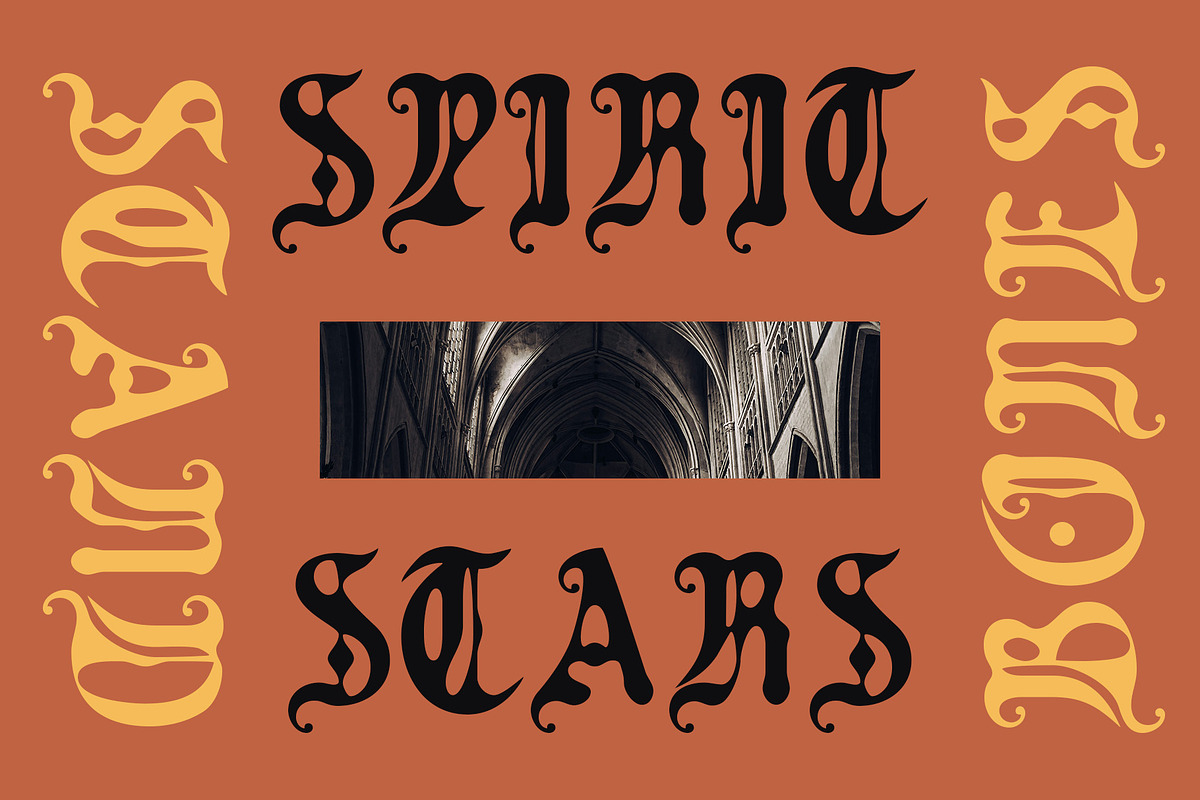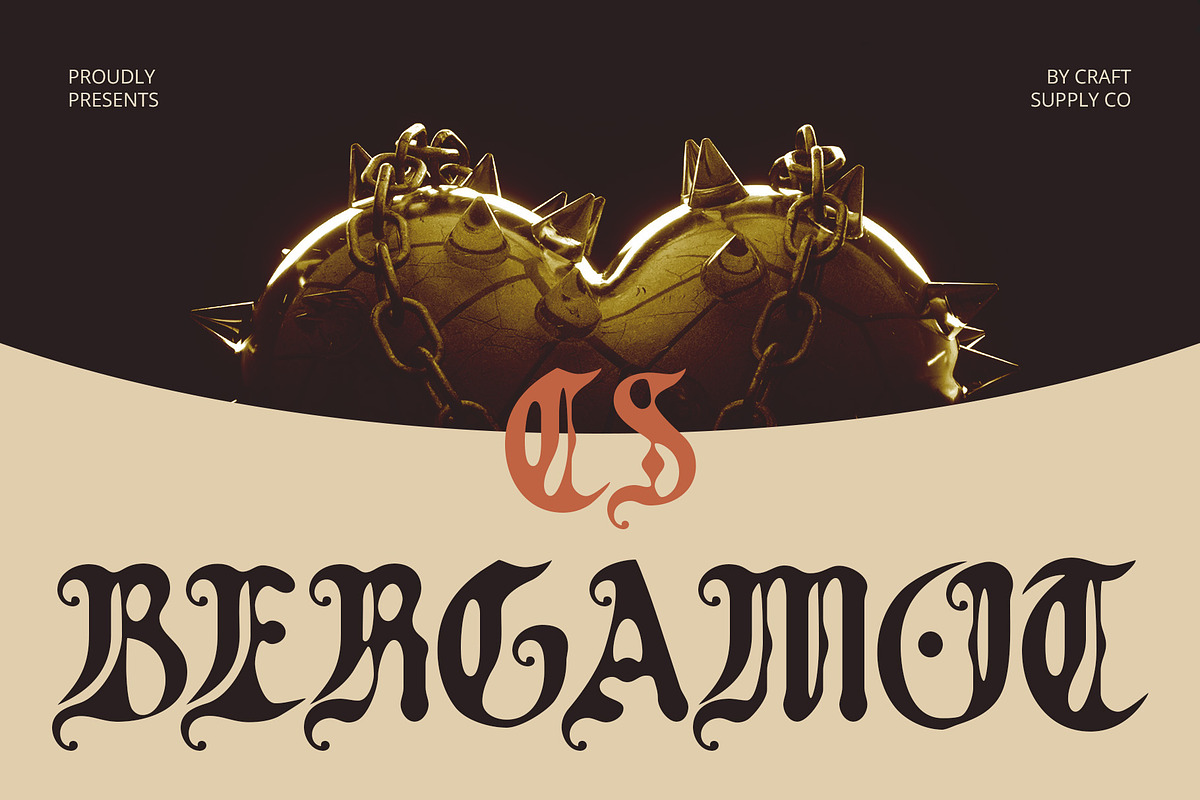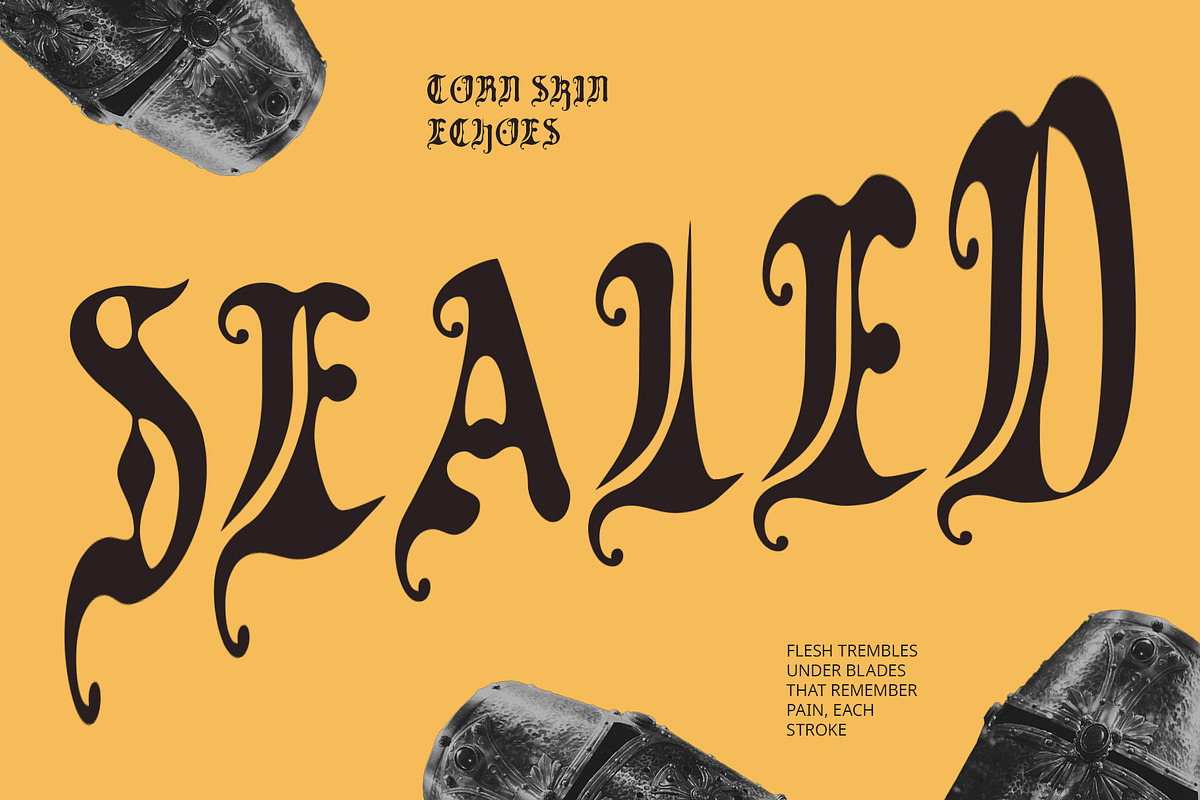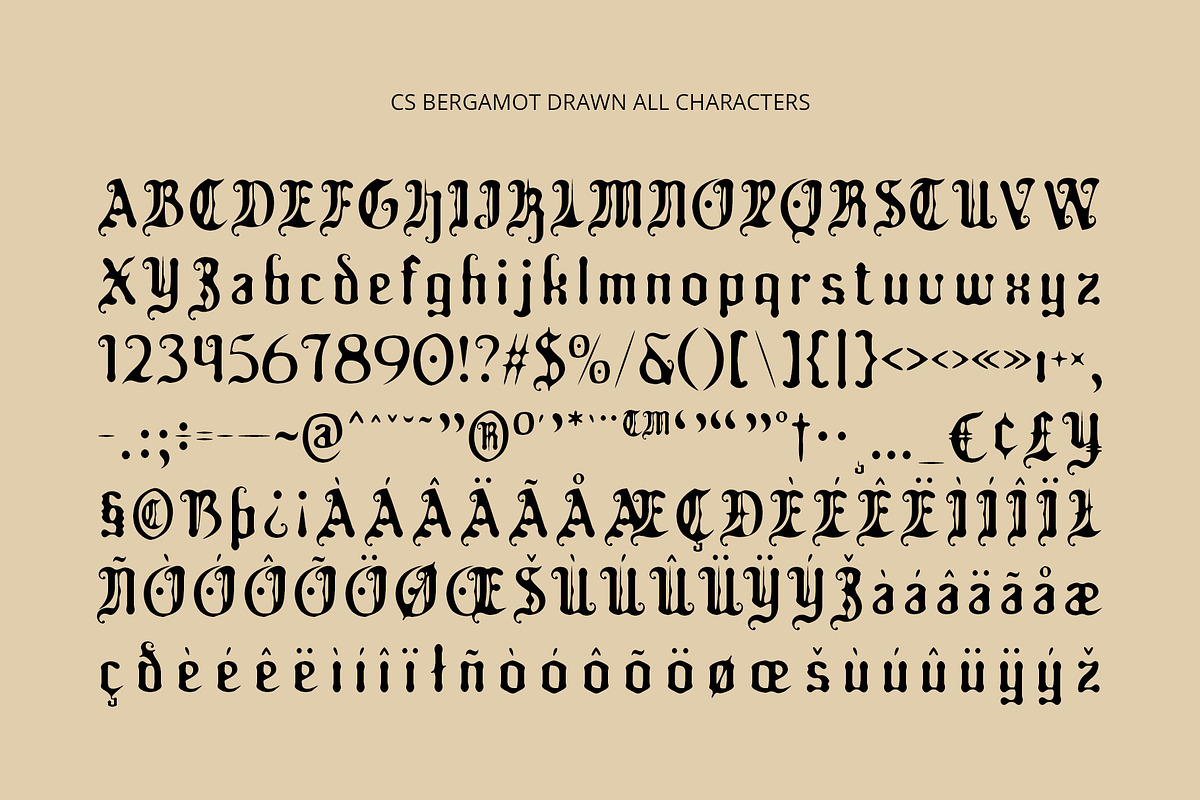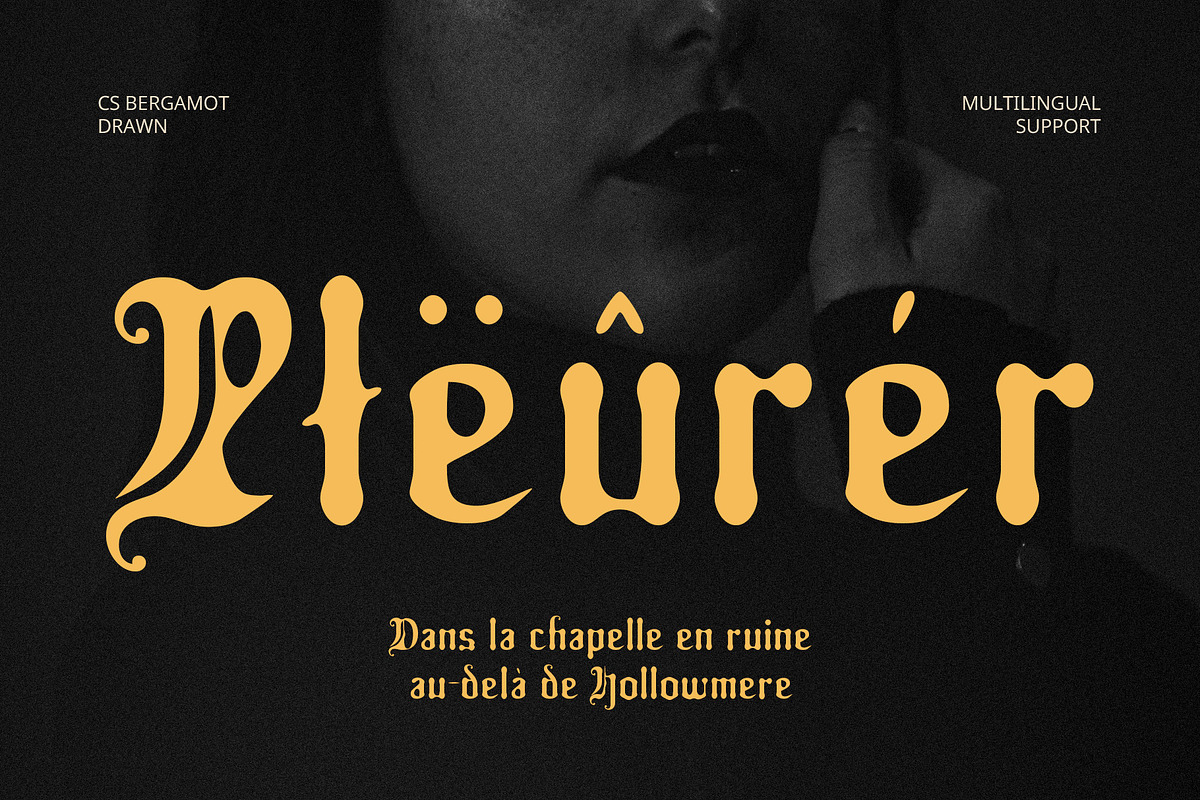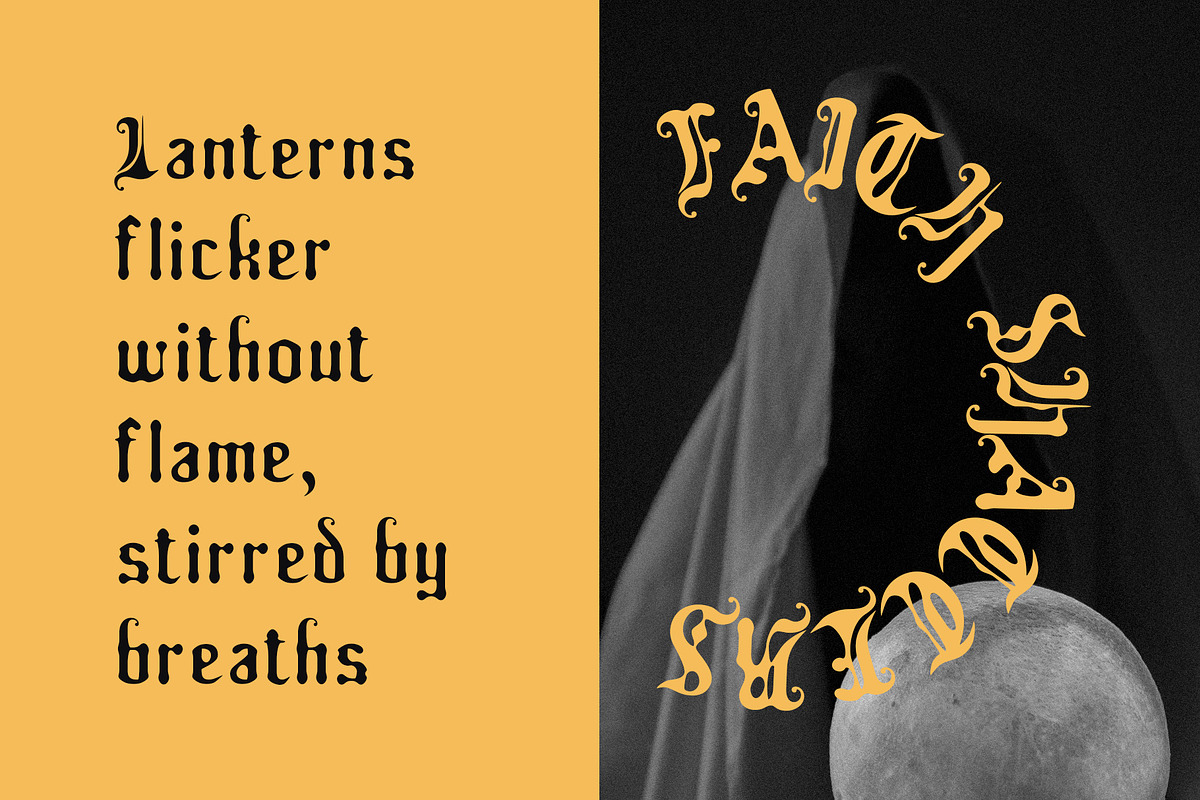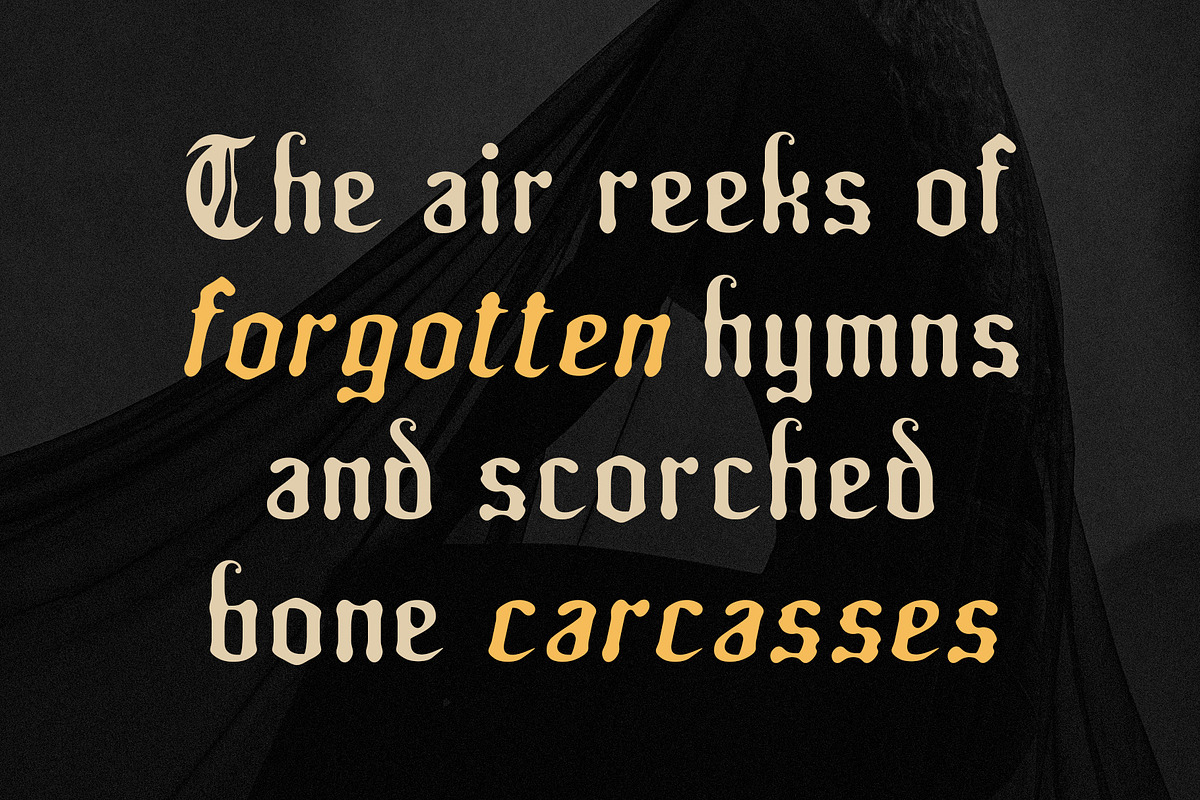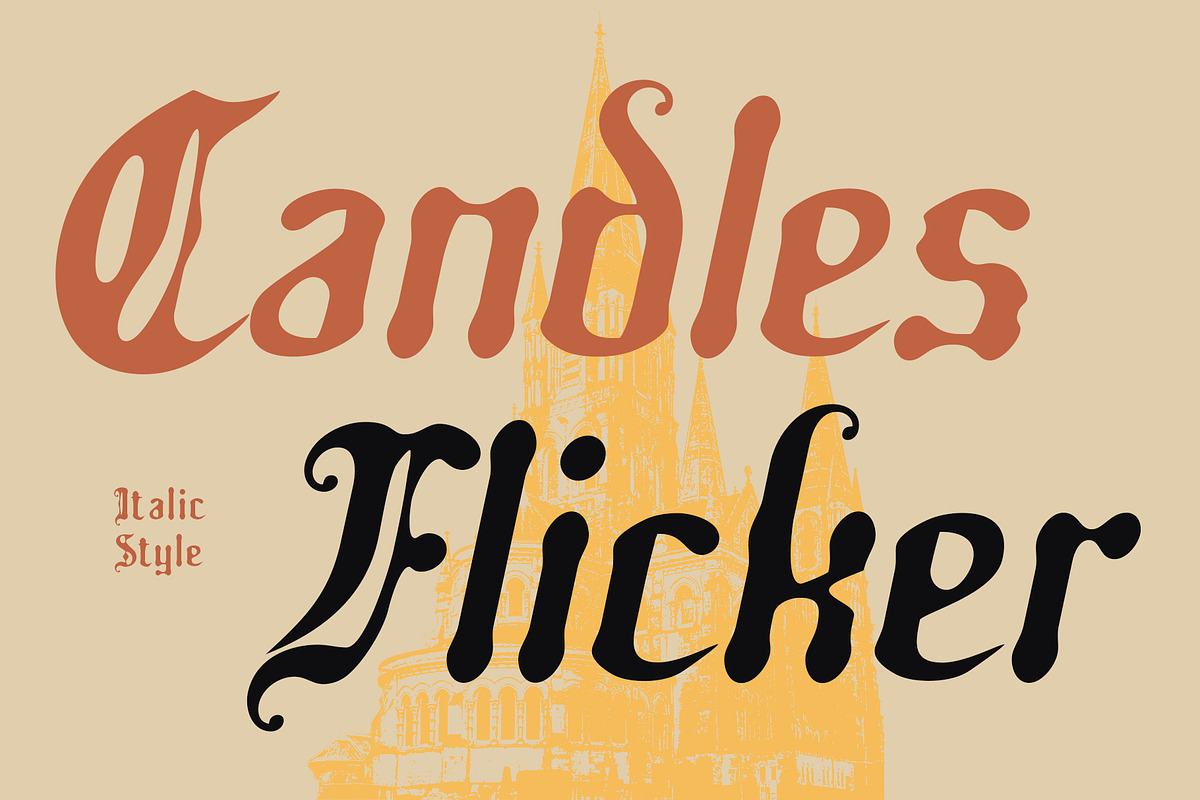
CS Bergamot Drawn
CS Bergamot Drawn – Bold Gothic Energy with a Handcrafted Edge
Modern Blackletter with Angular Strength CS Bergamot Drawn is a striking display font that reimagines traditional Gothic forms with bold, angular, and expressive letter shapes. Rooted in the blackletter tradition, it introduces sharp edges and contemporary styling that amplify visual impact. The result is a commanding presence that’s perfect for creative projects that require intensity and attitude.
Drawn Effect for Handcrafted Texture Enhanced by a drawn effect, this bold rebellion font gains a raw and organic character. This handcrafted texture adds depth and personality to each letterform, softening the rigidity of blackletter style with an artistic, almost rebellious flair. It gives the font a gritty, unpolished feel that makes your design look more tactile and authentic.
Artistic Edge with Subcultural Appeal The font’s boldness and handcrafted vibe make it ideal for subcultural aesthetics—grunge, punk, underground, and beyond. Its expressive form communicates a sense of rebellion and originality, offering designers a tool to make a bold statement in their work.
Perfect for Music, Streetwear, and Experimental Projects Whether you’re designing for music posters, album art, streetwear labels, or avant-garde visual experiments, this artistic grunge font offers a compelling mix of historical depth and modern edge. It’s built for designs that challenge norms and stand out with expressive identity.